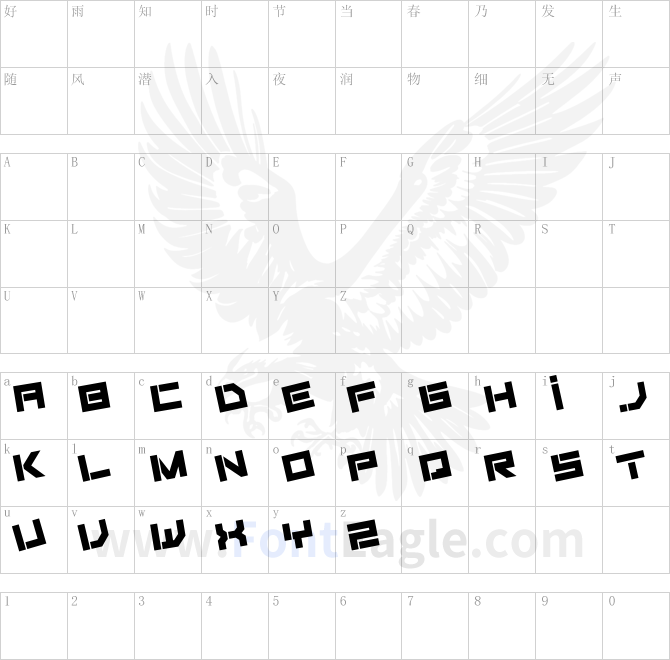
- Font name:Fiker regular promo
- Font Subfamily ID:Fiker regular promo:Version 1.00
- Font Full Name:Fiker regular promo
- Font Version:Version 1.00 February 8, 2014, initial release
- Postscript:Fikerregularpromo
- Font Copyright:Fiker regular promo © (By Carlos Matteoli a.k.a Qbotype). 2014. All Rights Reserved